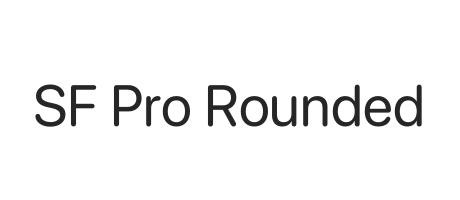
SF Pro Rounded
By Apple
This neutral, flexible, sans serif typeface is the system font for iOS, iPad OS, macOS and tvOS. The SF Pro includes nine weights, variable optical sizes, and a rounded version for optimum legibility.